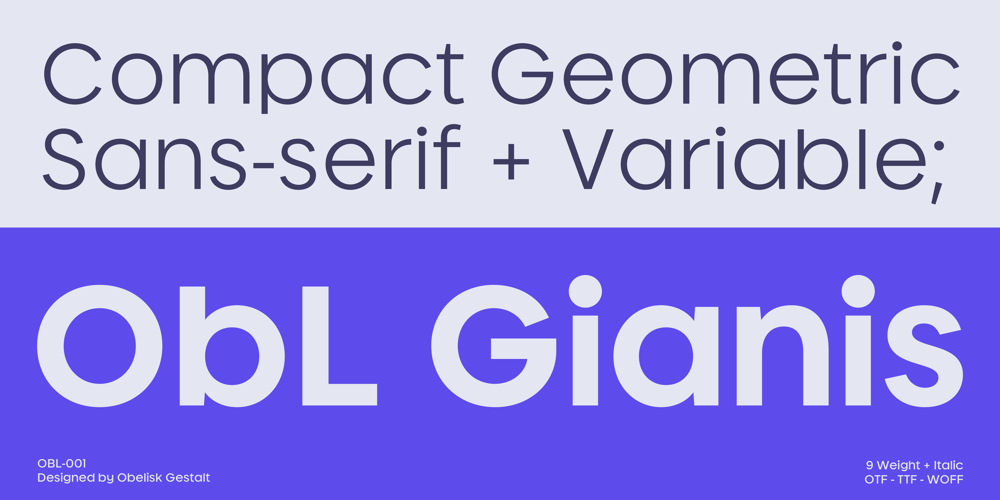
Gianis Font Family was designed by Wiro Sableng and published by Obelisk Gestalt. Gianis contains 19 styles and family package options. OBL Gianis is a family of compact geometric sans-serif typefaces designed with a strong focus on headline utility while infusing a touch of subtle naivety. We drew inspiration from the rigid yet rhythmic construction principles found in late 20th-century geometric classics like Avant-Garde, Futura, and Kabel.OBL Gianis seeks to salvage and build upon the legacy of geometric typefaces as they continue to evolve in the 21st century. We’ve considered various real-world scenarios and use cases, adapting to the ever-changing visual culture. This evolution has given OBL Gianis its unique quirks, including a larger x-height to accommodate bold usage in tighter typesetting, a compact double contour to balance the larger x-height, and shorter descenders and ascenders in lowercase characters.With extensive Latin character support (over 1000 glyphs) and 18 different weights and accompanying italics, OBL Gianis is well-equipped to meet the ever-changing demands and trends in headline typesetting.